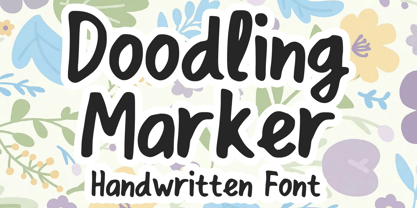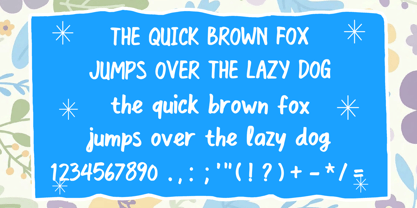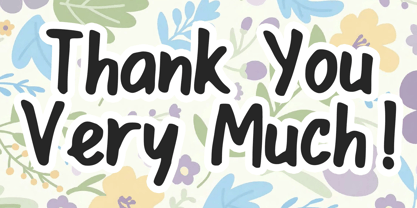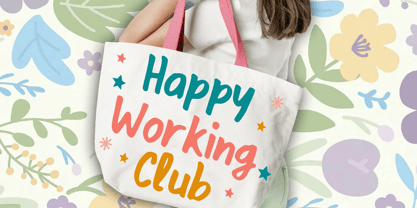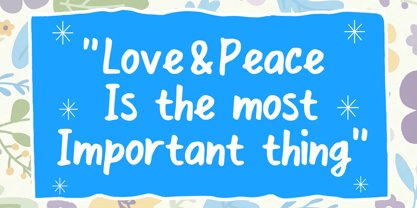
Doodling Marker
The Doodling Marker Font Family was designed by Gabriel Valentinus and published by Mvmet. Doodling Marker contains 1 styles. More about this family
Introducing Doodling Marker, a whimsically creative hand-lettered marker font designed to transform and elevate your design projects. This versatile font is perfect for a wide range of applications, including inventive sticker designs, personalized t-shirts, and unique logo creations. Doodling Marker also shines on attention-grabbing magazine and book covers, as well as in comics and cartoon illustrations. Immerse yourself in the playful charm of Doodling Marker and infuse a dash of carefree cool into your designs, making them stand out with its distinctive style and engaging character.